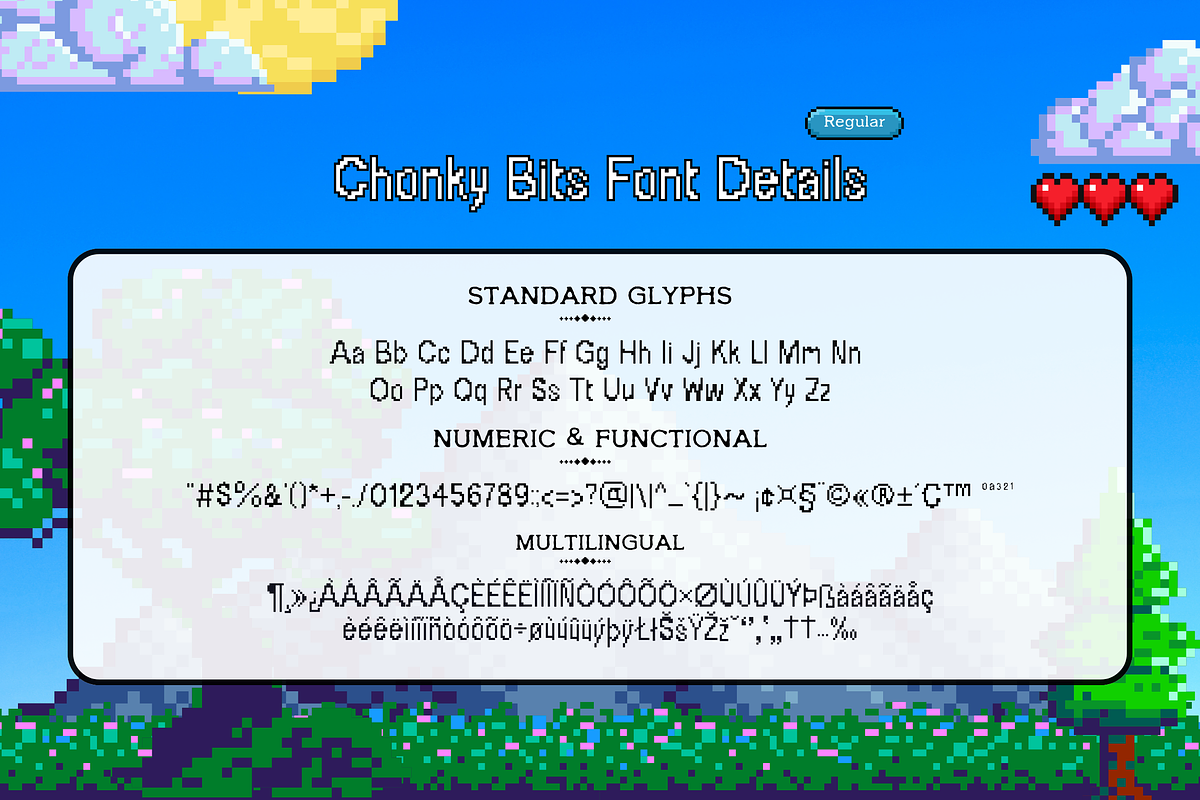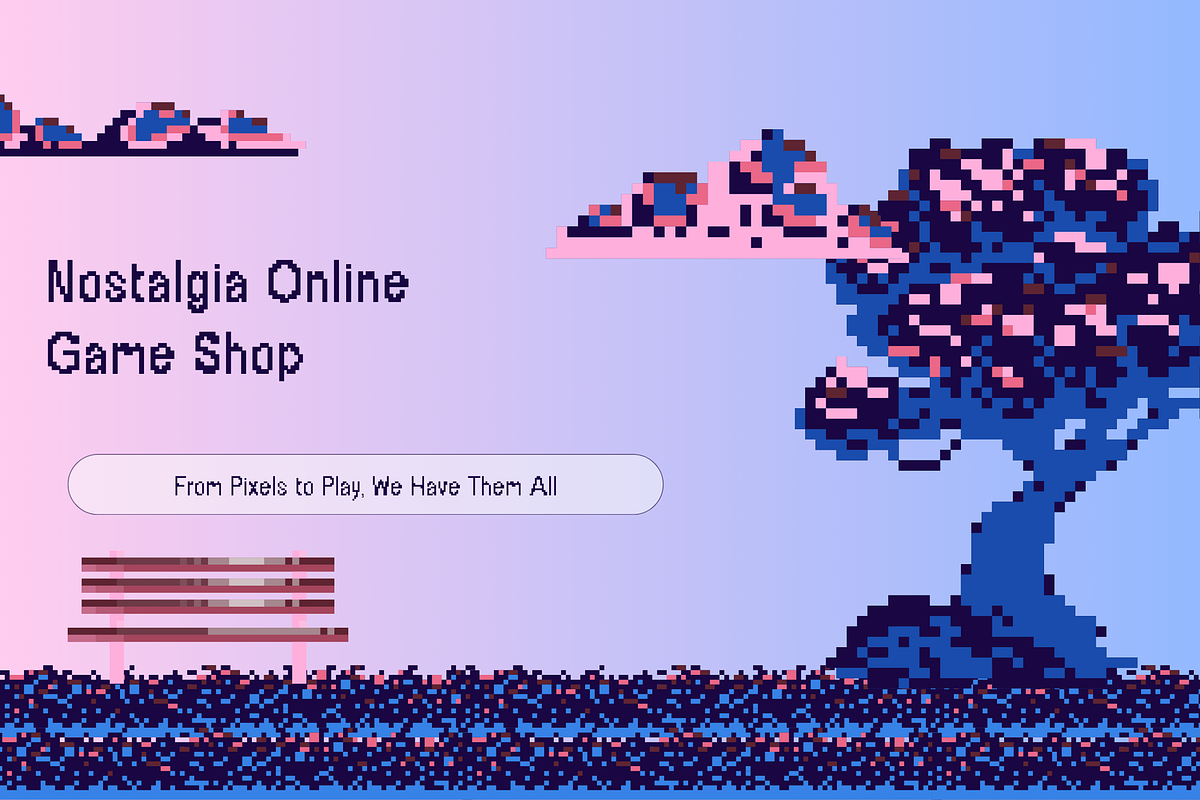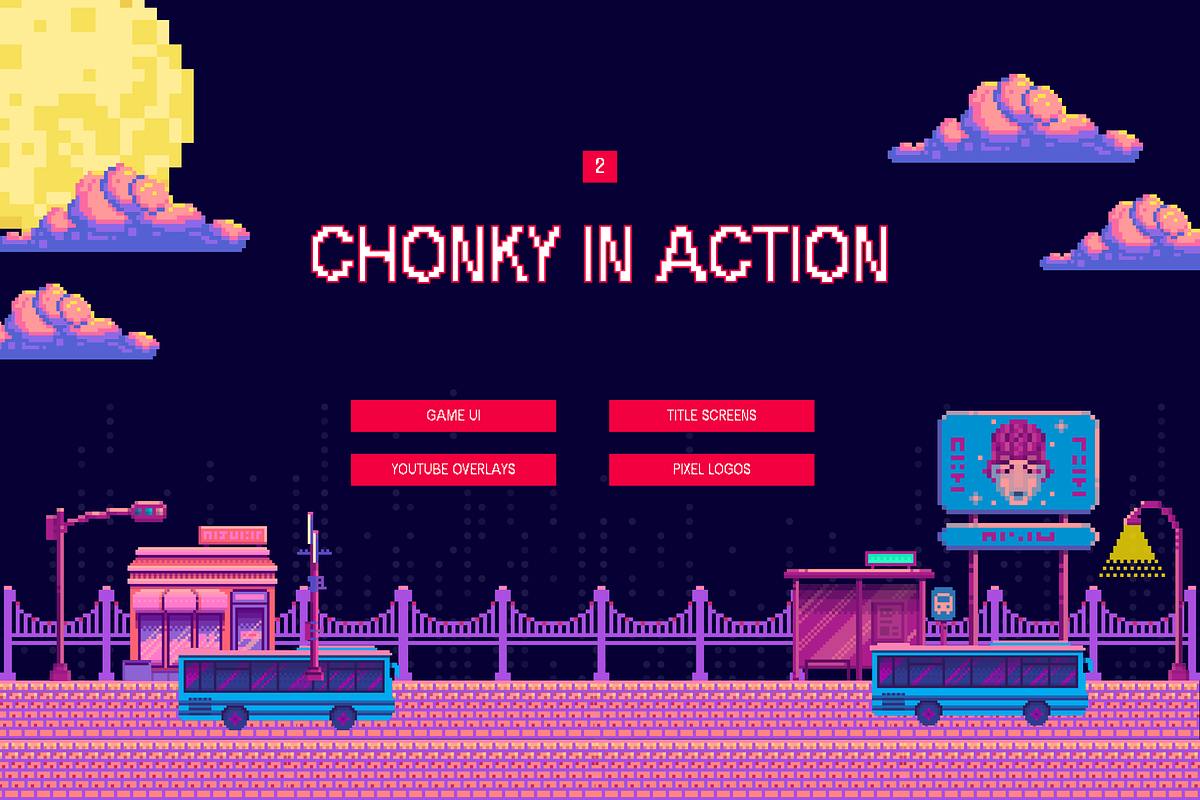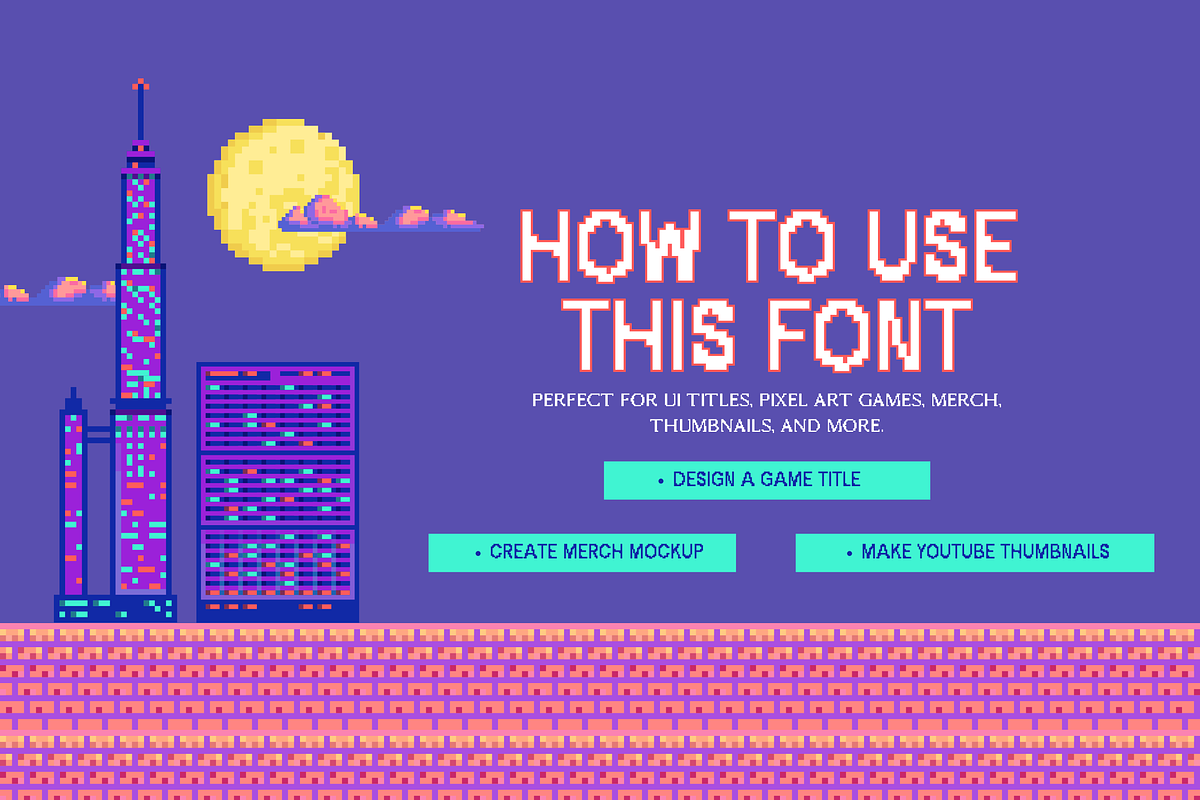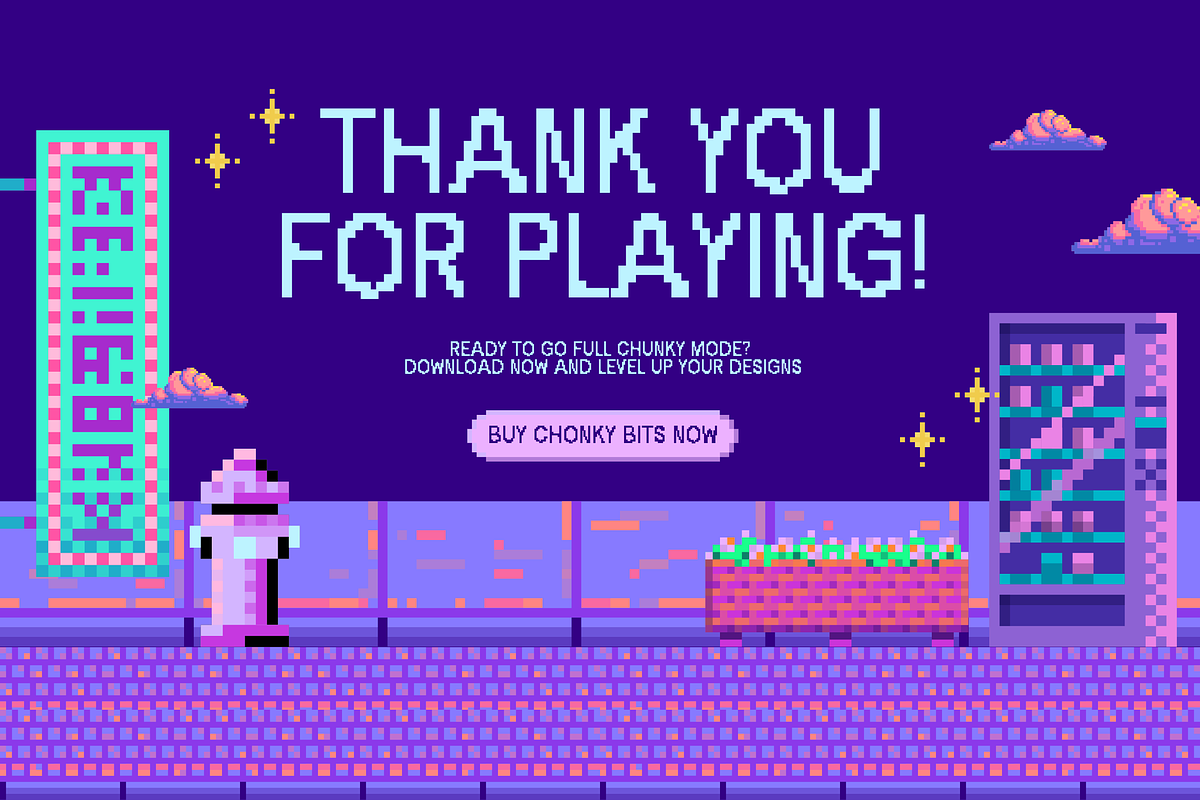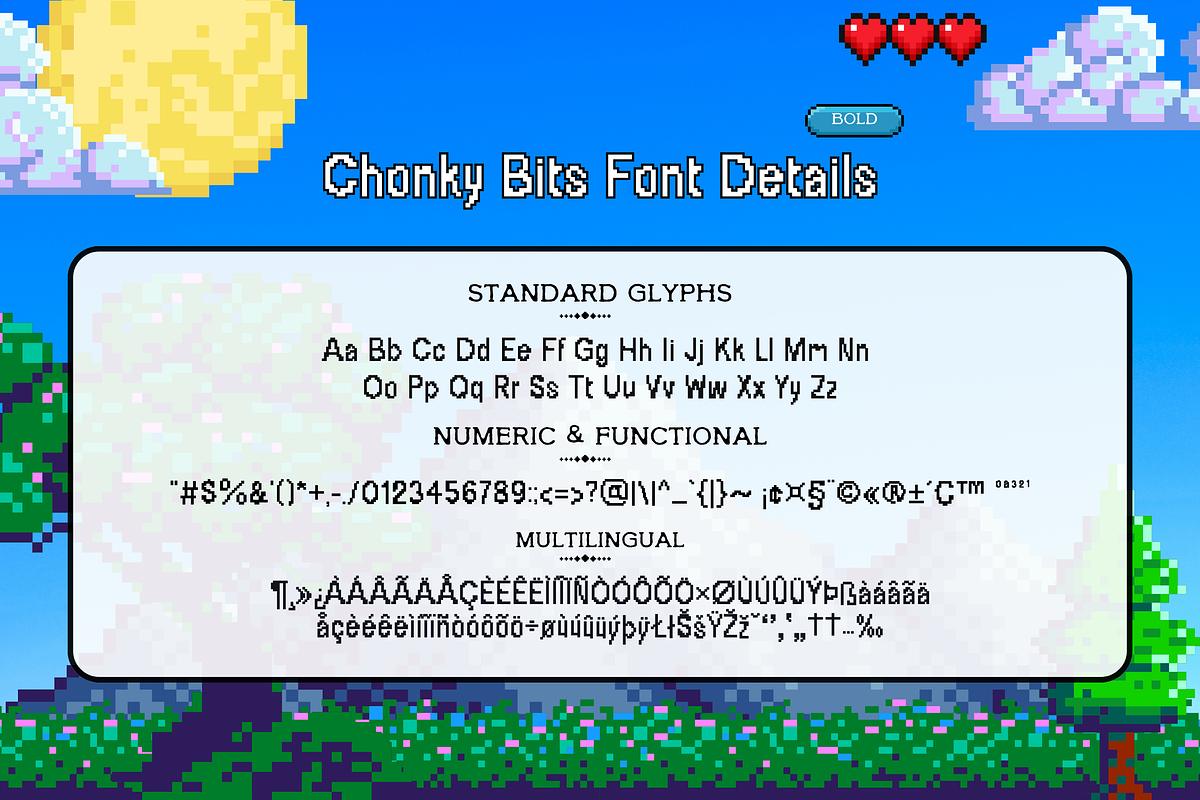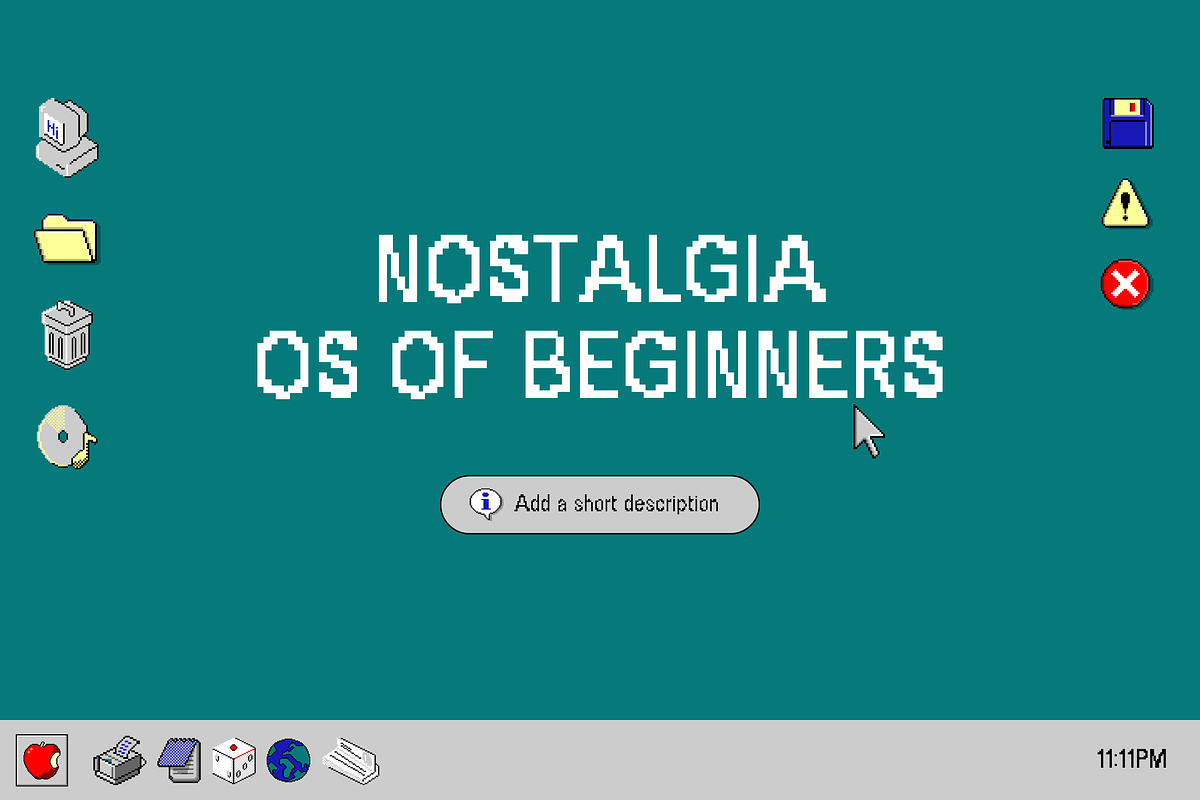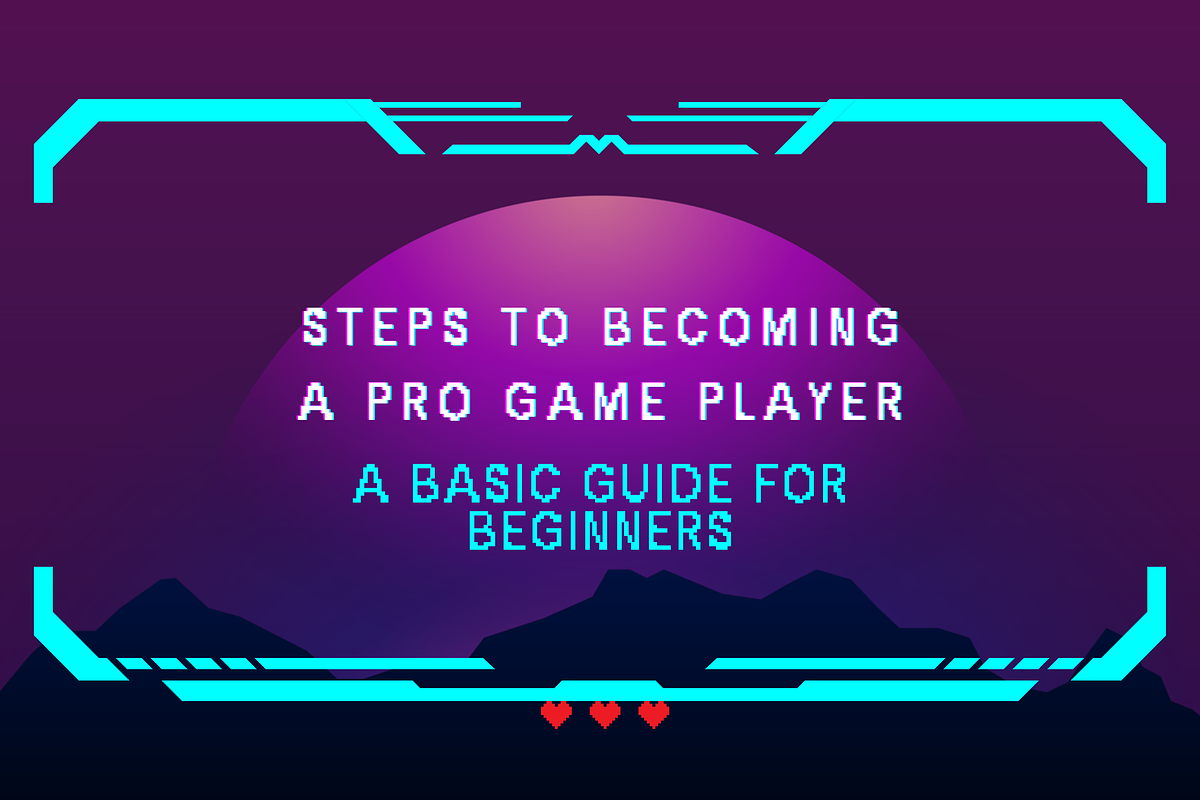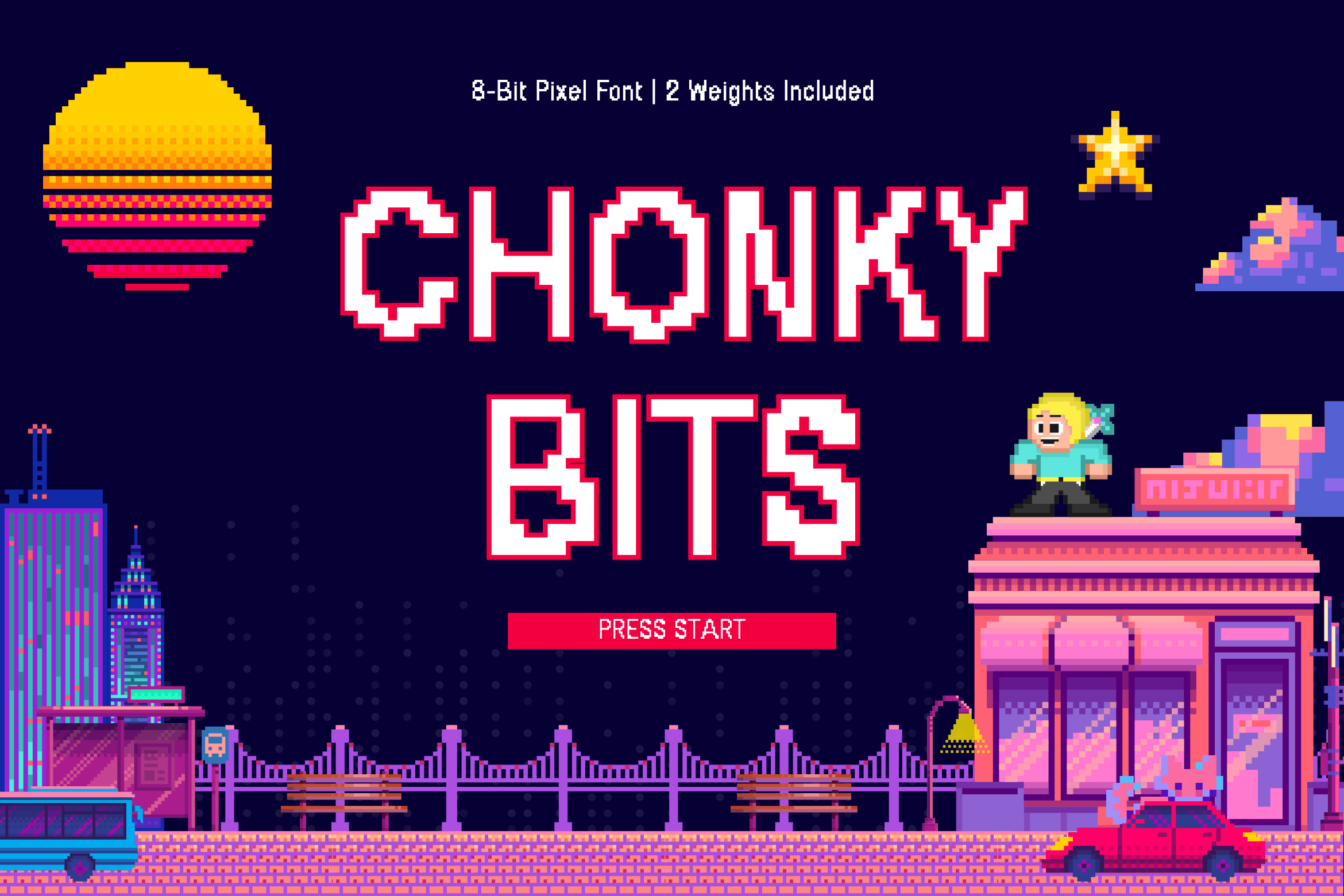
Chonky Bits – A Pixel Font
Say hello to Chonky Bits, the pixel font that packs a punch! Bold, bubbly, and brimming with retro charm, this font was made for creatives who want their text to shout “look at me” in 8-bit style.
Built for game devs, designers, streamers, and nostalgic dreamers, Chonky Bits brings back the feel of old-school arcades—with a modern, polished edge.
Why You’ll Love It:
- Bold & Chunky: Every character is thick, loud, and proud—perfect for titles and UI.
- Retro-Inspired: Crafted to mimic pixel-perfect arcade fonts from the golden gaming age.
- Clean Lines: Clear even at small sizes, optimized for readability on screen.
- Two Weights Included: Use Regular for clean game interfaces and Bold when you want max impact.
- Creative-Ready: Perfect for overlays, thumbnails, merch, pixel art games, and quirky branding.
- Friendly Vibe: Feels playful, not blocky—ideal for fun and welcoming designs.
- Two weights: Regular & Bold
Let your text go full chunky mode.
Chonky Bits isn’t just another pixel font—it's a whole mood.